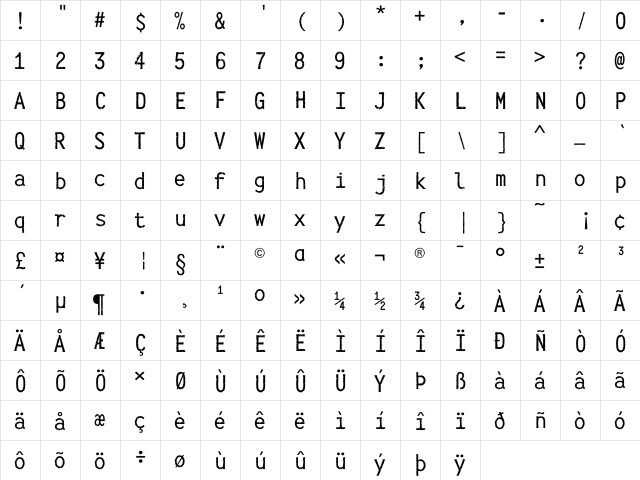
IckyTicket Mono Regular
| Foundry | K-Type |
| Designer | Keith Bates |
| Copyright | IckyTicket Mono 018 https://www.k-type.com A monospaced font based on the coarsely printed numbering from 1960s bus tickets, and designed to simulate rough texture at smaller type sizes. |
Design Context for IckyTicket Mono Typeface
IckyTicket Mono brings the precise, column-aligned rhythm of monospaced typography to designs that value technical clarity and systematic order.